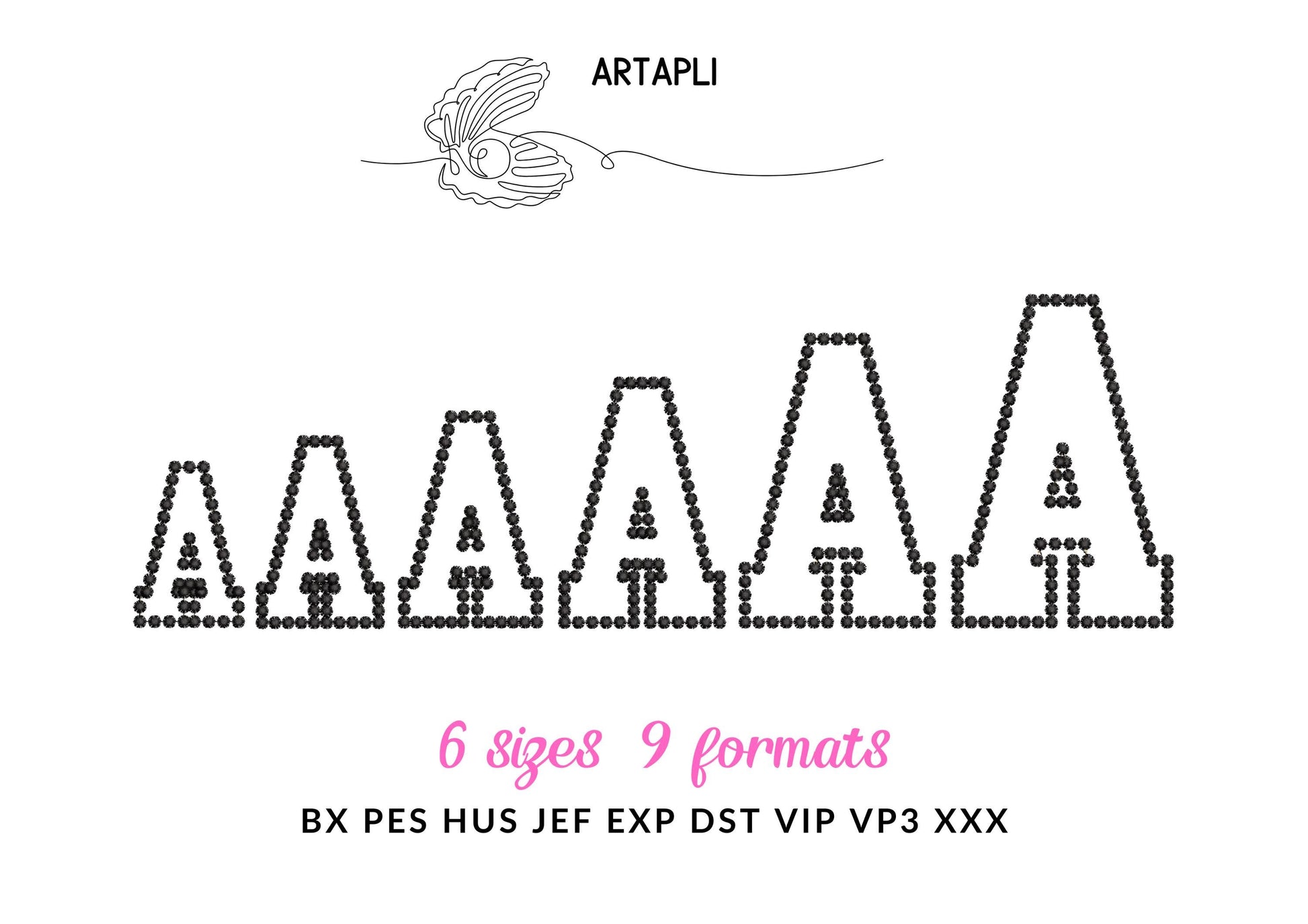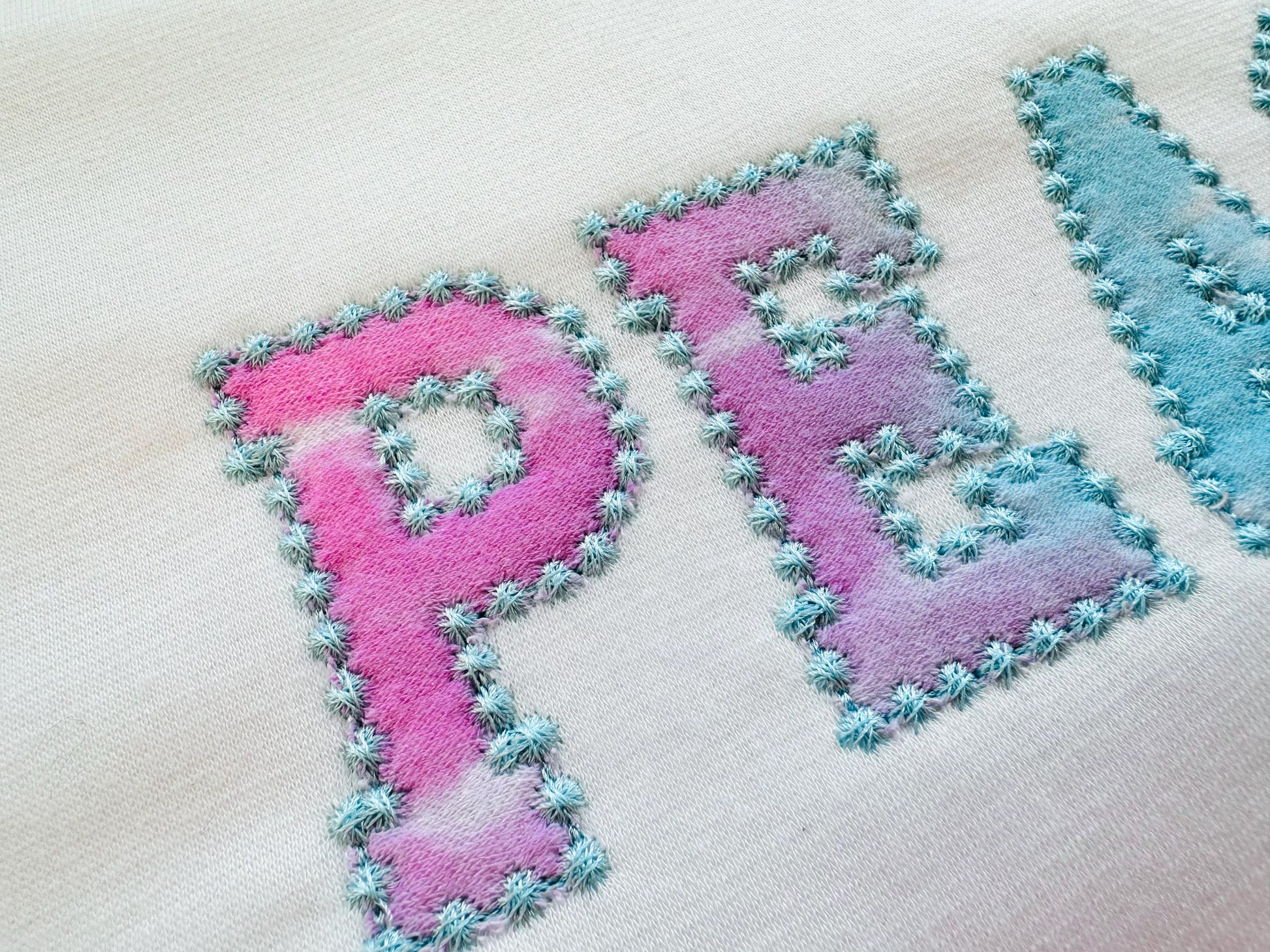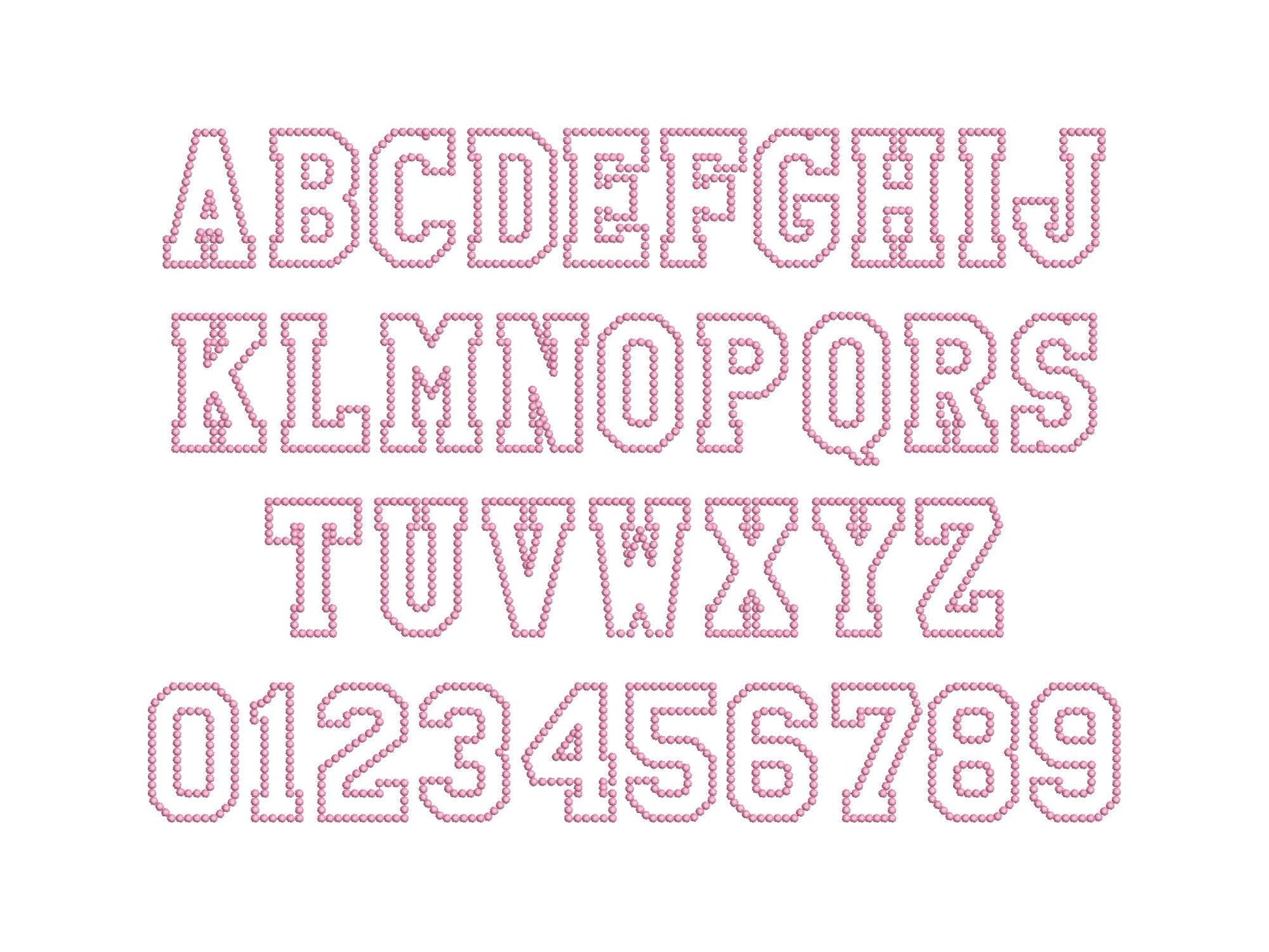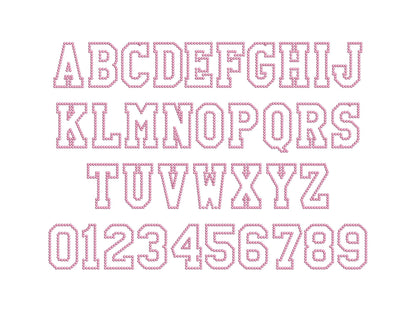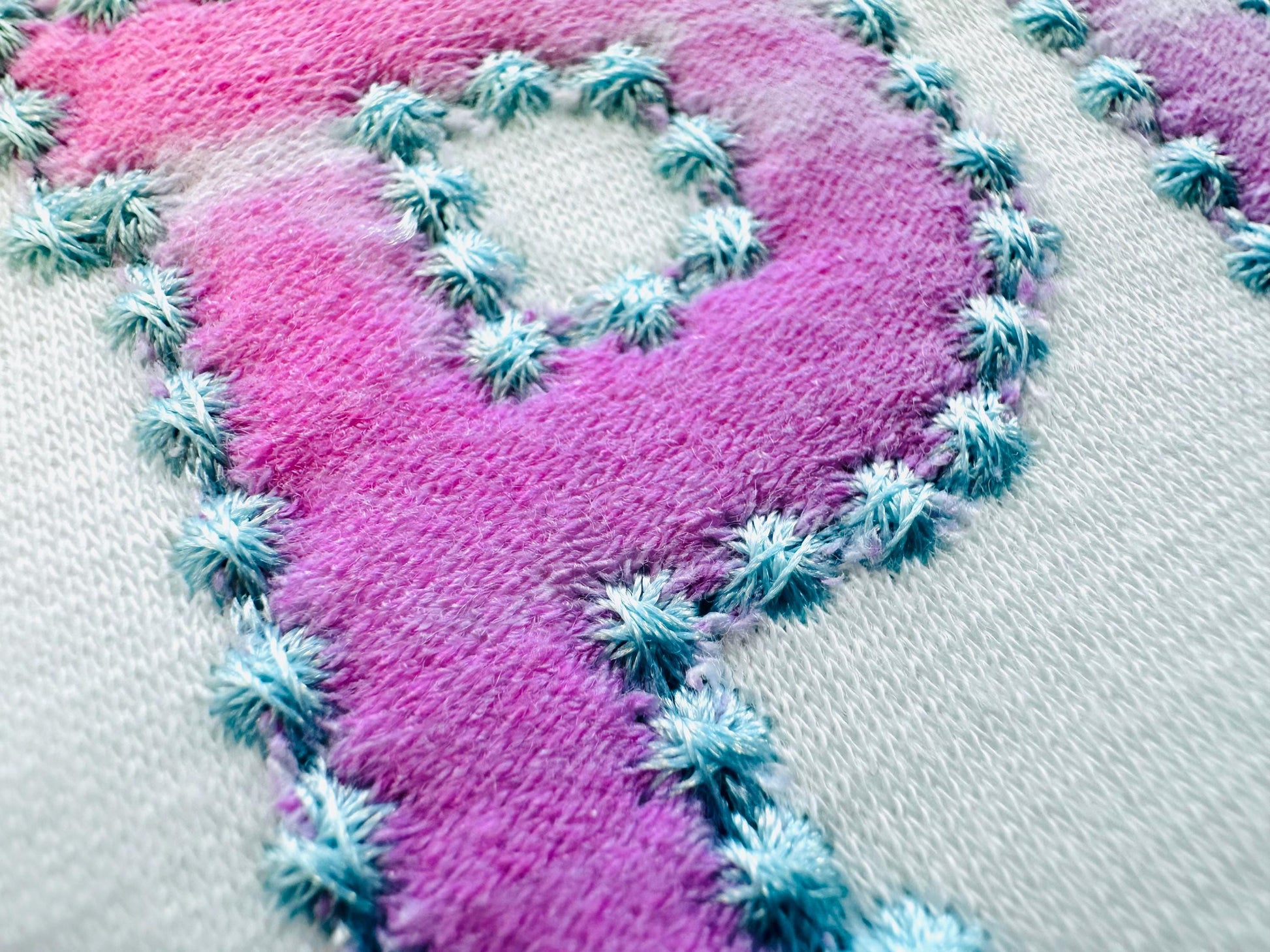
Pearl Stitch Outline Athletic Font Applique
Applique letters with a pretty pearl stitch outline. Uppercase A to Z and numbers 0 to 9 in six sizes: 2.5, 3, 3.5, 4, 4.5 and 5 inches.
- Pearl stitch outline applique font
- Uppercase A-Z and numbers 0-9
- 6 sizes, 2.5 to 5 in